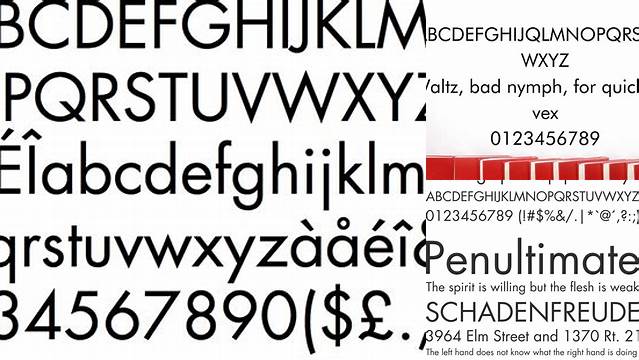
Are you on the hunt for the perfect typeface to elevate your design projects? Look no further, because the Futura Book TTF font is here to save the day! Guys, this font is a timeless classic, known for its clean lines, geometric shapes, and incredible versatility. In this comprehensive guide, we'll dive deep into everything you need to know about the Futura Book TTF font, from where to snag a free download to how to use it effectively in your work. So, buckle up, and let's get started on this font-tastic journey!
Futura Book TTF Font: A Comprehensive Overview
Futura Book TTF font has a fascinating history, born from the minds of German type designers in the late 1920s. Guys, Paul Renner designed the original Futura, drawing inspiration from the Bauhaus design movement. The font's geometric sans-serif style quickly gained popularity due to its modern and elegant appearance. Over time, the font family expanded to include various weights and styles, and today, Futura Book is a popular choice for both print and digital design. This iconic font is characterized by its clean lines, simple shapes, and excellent readability. The font’s design is based on geometric forms, such as circles, triangles, and squares. This gives Futura Book a sense of order and precision, making it a popular choice for professional and modern designs. The font's versatility makes it suitable for various applications, from headlines and body text to logos and branding. The Futura Book TTF font is a true gem, offering a range of styles and weights, ensuring it suits any project. Its sleek and modern aesthetic has made it a favorite among designers and typographers, and its enduring popularity speaks volumes about its quality and timeless appeal. So, whether you're a seasoned designer or a beginner, understanding the characteristics and history of the Futura Book TTF font is essential for leveraging its full potential.
Origins and Design Philosophy of Futura Book
Let's journey back to the early 20th century when the Futura Book TTF font first emerged. Guys, Paul Renner, the brilliant mind behind this typeface, designed it in the late 1920s in Germany. The design philosophy was rooted in the principles of the Bauhaus movement, which emphasized functionality, simplicity, and geometric forms. This resulted in a font that felt modern and forward-thinking. The design of the font is based on geometric shapes, such as circles, triangles, and squares, which gives it a sense of order and precision. This design philosophy has had a lasting impact on typography and design, as Futura Book is known for its clarity and readability, making it a popular choice for various applications. Renner's vision was to create a typeface that was both functional and aesthetically pleasing. This led to the creation of a font that is easy to read, versatile, and can be used in a variety of design applications. The philosophy behind the font's design emphasized the use of geometric shapes and the rejection of ornamentation, resulting in a typeface that is both modern and timeless. The simplicity and elegance of the font have made it a popular choice for designers and typographers for decades, showcasing Renner's vision of creating a font that is both functional and beautiful. It is an embodiment of the Bauhaus principles, and understanding its origins and design philosophy provides a deeper appreciation for its unique characteristics. The font's enduring popularity underscores the brilliance of its design and the lasting influence of the Bauhaus movement. It has the timeless appeal and remains a testament to the power of minimalist design. Its geometric shapes and clean lines are a testament to the innovative spirit of the time and provide a fascinating insight into the evolution of typography.
Decoding the Key Characteristics of Futura Book TTF
Let's get into the nitty-gritty of what makes the Futura Book TTF font so special, shall we? Guys, one of the most recognizable features is its geometric sans-serif style. This means that the letterforms are based on simple geometric shapes, like circles, triangles, and squares, with no serifs (those little strokes at the ends of letters). The font has a clean, modern look and is incredibly readable. The font's geometric construction contributes to its overall balance and harmony, making it visually appealing and easy on the eyes. Its high x-height and open counters enhance readability, ensuring that the font is easily legible even at smaller sizes. Its consistent stroke weights, the typeface offers a uniform and balanced appearance, adding to its overall sense of elegance. The consistent stroke weights and uniform design contribute to its overall sense of balance and harmony, making it visually appealing and easy to read. Its versatility makes it suitable for various applications, from headlines and body text to logos and branding. The unique combination of features contributes to the font's timeless appeal and makes it a favorite among designers for decades. These distinct characteristics contribute to the font's versatility and make it a popular choice for various applications. The font's design is rooted in simplicity and functionality, resulting in a typeface that is both aesthetically pleasing and highly effective in conveying information. It’s a testament to how design can be both beautiful and practical. The clean and contemporary appearance of Futura Book TTF makes it an excellent choice for projects where clarity and a modern aesthetic are essential.